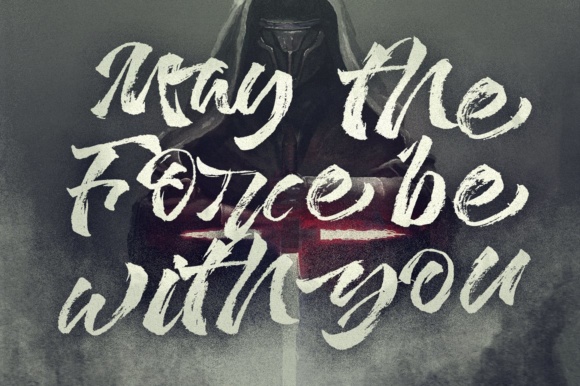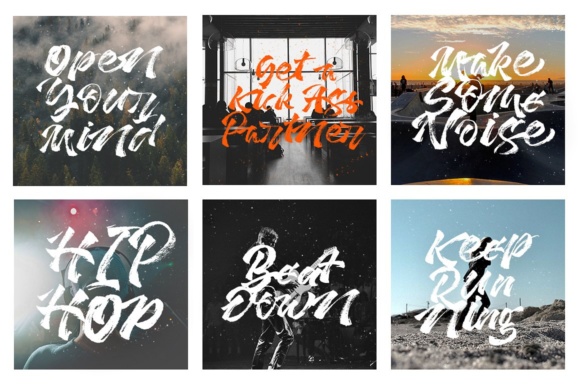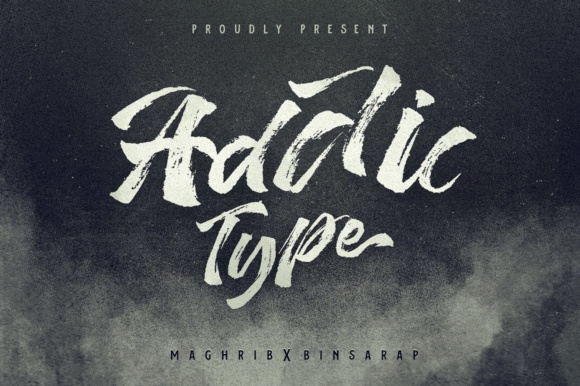
Addictype Font: Elevate Your Designs with a Hand-Painted Masterpiece
In the world of typography, few fonts manage to capture the essence of hand-lettered artistry as effortlessly as the Addictype Font. This stunning, hand-painted typeface is a game-changer for designers and crafters looking to infuse their projects with a unique, personalized touch. With its distinctive, custom lettering style, Addictype Font is poised to revolutionize the way you approach design.
The Art of Hand-Painted Typography
The Addictype Font is a labor of love, meticulously crafted to mimic the charm and character of hand-painted letters. Unlike conventional fonts, which can often feel sterile and impersonal, Addictype’s hand-lettered aesthetic brings a sense of warmth and humanity to any design. Whether you’re working on a branding project, a craft, or a digital masterpiece, this font’s distinctive style is sure to captivate your audience.
Key Features of Addictype Font
- Hand-Painted Perfection: Each letter has been carefully hand-painted to ensure a unique, one-of-a-kind feel.
- Customizable: With a range of styles and variations, you can tailor the font to suit your project’s specific needs.
- Versatile: From logos and branding to crafts and digital art, Addictype Font is the perfect choice for a wide range of creative projects.
Unlocking Creative Potential
For designers, the Addictype Font offers a fresh palette of creative possibilities. Its hand-painted charm can instantly elevate a project from ordinary to extraordinary, providing a distinctive edge in a crowded marketplace. For crafters, this font opens up new avenues for personalization, allowing you to add a professional, bespoke touch to your handmade creations.
Applications of Addictype Font
The versatility of Addictype Font makes it suitable for a myriad of applications, including:
- Branding and Logos: Stand out with a custom, hand-painted logo that captures the essence of your brand.
- Digital Art: Add a touch of personality to your digital creations, from social media graphics to blog headers.
- Crafts and DIY Projects: Personalize your crafts with beautifully lettered quotes, titles, and labels.
- Stationery and Invitations: Create one-of-a-kind stationery sets and invitations that leave a lasting impression.
Tips for Using Addictype Font
To make the most of Addictype Font, consider the following tips:
- Experiment with Colors: The hand-painted texture of Addictype Font lends itself beautifully to vibrant, contrasting colors.
- Mix and Match: Combine different letters and words to create a truly unique composition.
- Play with Texture: Overlay textures or patterns to add depth and interest to your design.
The Addictype Font is more than just a typeface – it’s a tool for creative expression. Its stunning, hand-painted design offers a refreshing alternative to traditional fonts, empowering designers and crafters to push the boundaries of their imagination. Whether you’re looking to create striking designs, add a personal touch to your crafts, or simply explore new avenues of creativity, Addictype Font is the perfect companion on your artistic journey.